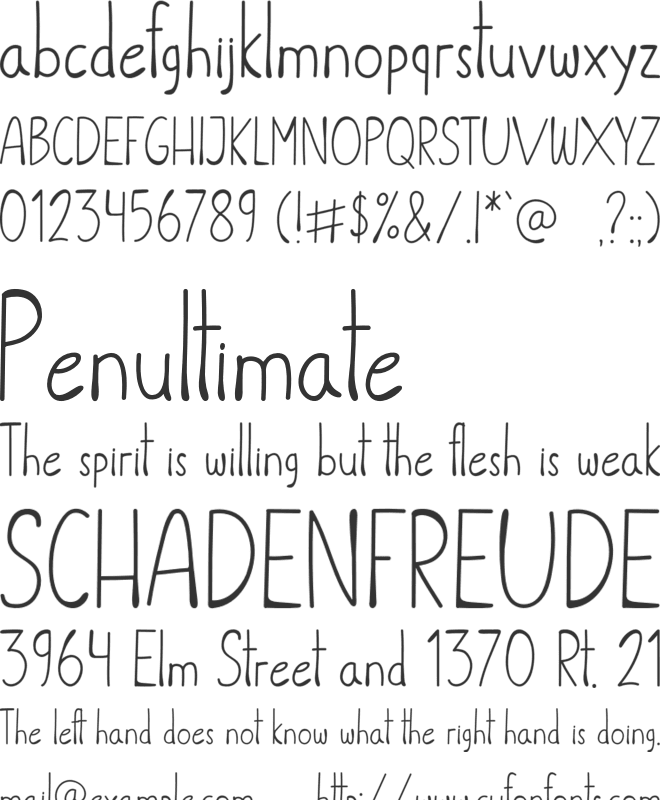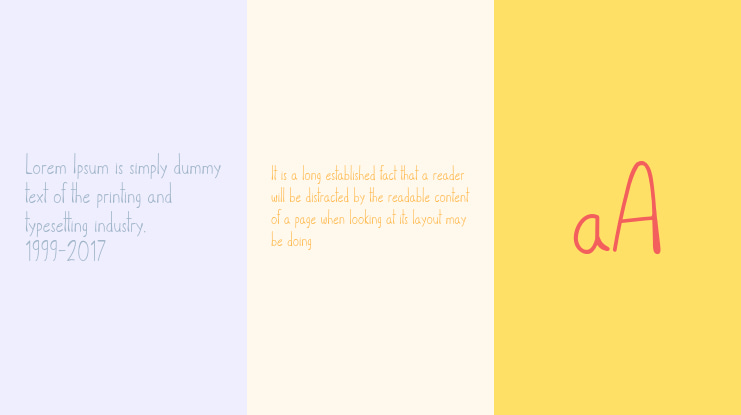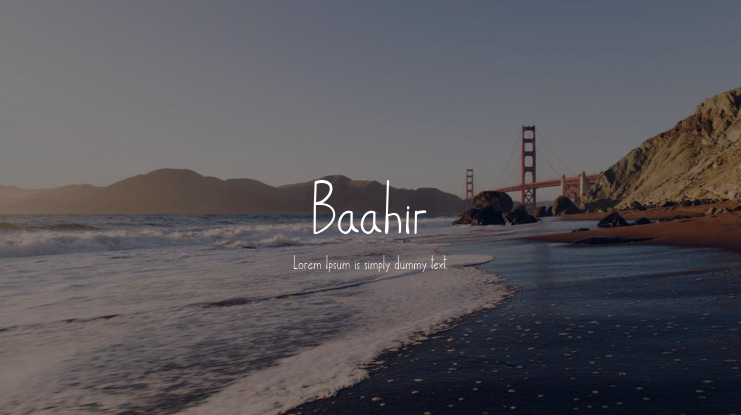
Baahir Font
Baahir Handmade Font is a stylish and creative handwritten font. It’s perfect for crafting unique designs like logos, invitations, posters, and greeting cards.